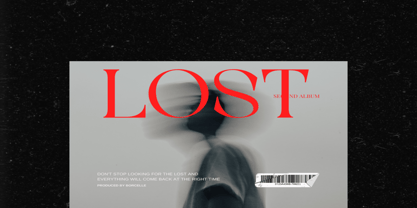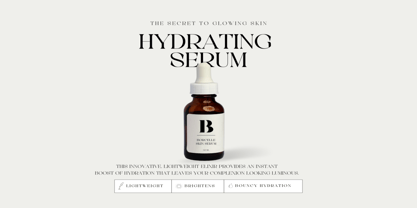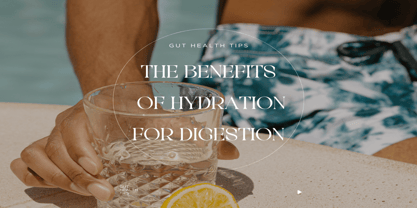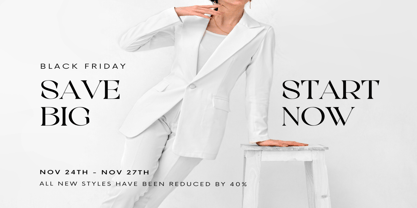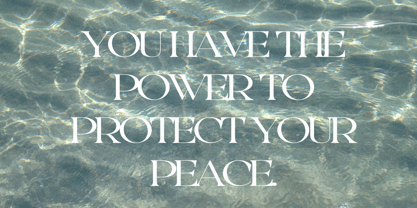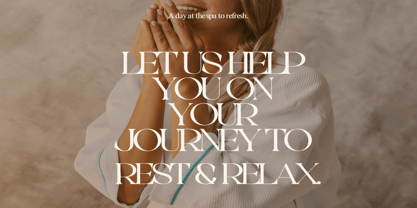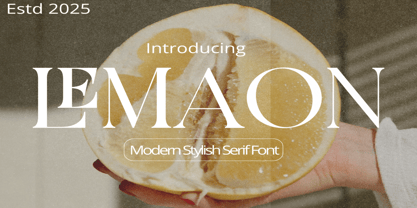
Lemaon
by Dream Font
The Lemaon Font Family was designed by Robert Evans and published by Dream Font. Lemaon contains 1 styles.
Lemaon Stylish Ligature Typeface, inspired by the famous minimalist logo perfect for the purposes of designing templates, brochures, videos, advertising branding, logos and more.
– Ligatures